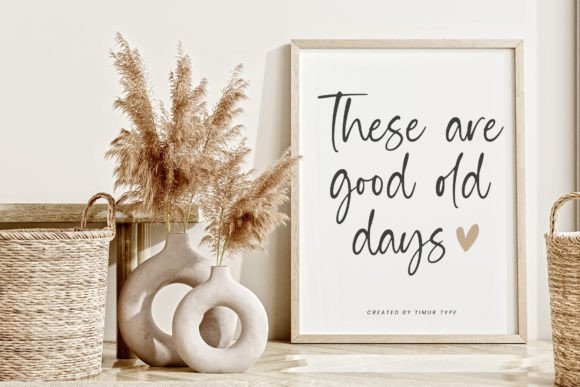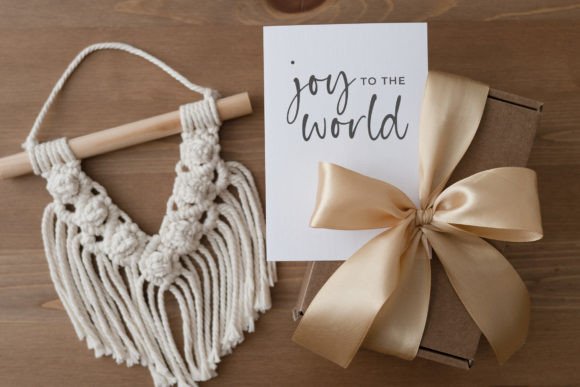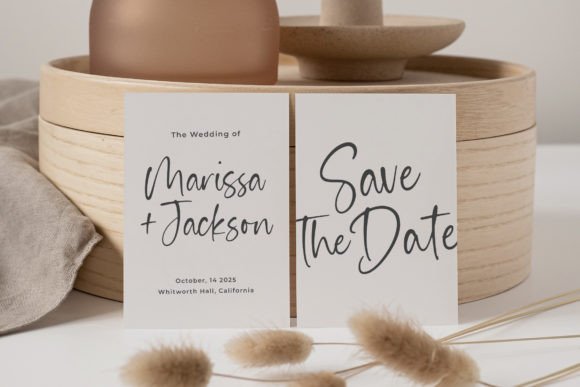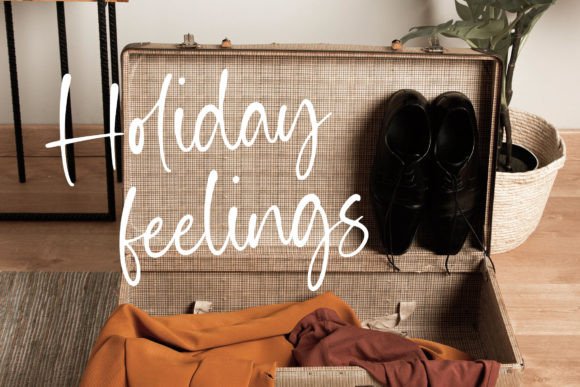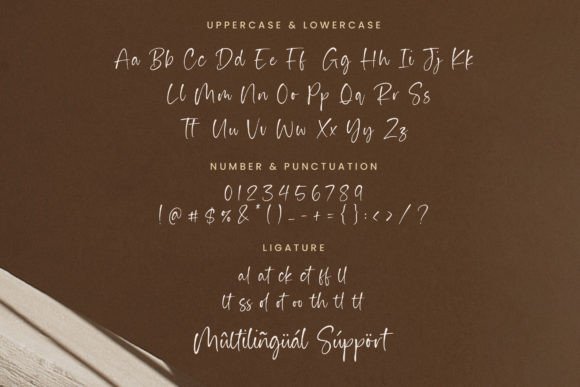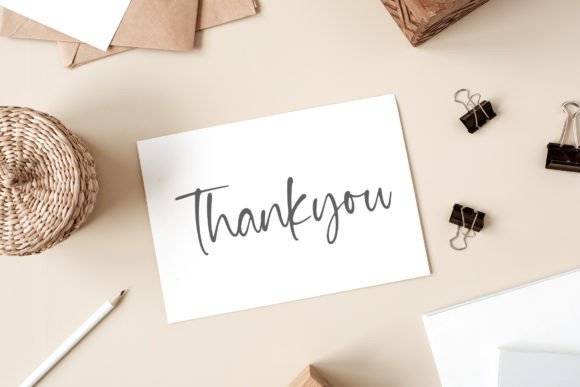
The Magic of Haiden Smith Font: Elevate Your Designs with Style
I’ll never forget the time I was working on a branding project for a cozy boutique hotel. I had the perfect color palette, the ideal imagery, but I was stuck on finding the right font. The client wanted something modern, yet warm and inviting. That’s when I stumbled upon Haiden Smith Font, and it was love at first sight! 💫
An Honest Review of Haiden Smith Font
- ✨ Modern and Fresh: Haiden Smith Font has a stylish script design that instantly adds a touch of sophistication to any project.
- ✅ Warm and Inviting: The font’s unique characteristics make it perfect for creating a cozy atmosphere in branding, packaging, and marketing materials.
- 💬 Versatile: Haiden Smith Font can be used for a wide range of applications, from product packaging to social media graphics, magazines, and even wedding designs.
While Haiden Smith Font is an amazing addition to any design project, there are a few things to keep in mind: ⚠️ It may not be the best choice for very small font sizes, as some details might get lost. 🤔 Additionally, it’s a script font, so it might not be suitable for very formal or corporate designs.
The Designer Inspiration Behind Haiden Smith Font
Haiden Smith Font was designed with the intention of creating a modern, yet approachable script font. The designer aimed to craft a font that would be perfect for creative projects, branding, and marketing materials. With its unique characteristics and elegant feel, Haiden Smith Font is sure to become a favorite among designers and crafters.
Q: What type of projects is Haiden Smith Font best suited for?
A: Haiden Smith Font is perfect for product packaging, branding projects, magazines, social media graphics, wedding designs, and more.
Q: Is Haiden Smith Font available in different weights or styles?
A: Haiden Smith Font comes in a range of weights and styles, making it versatile for various design applications.